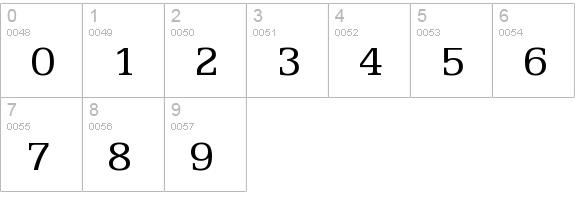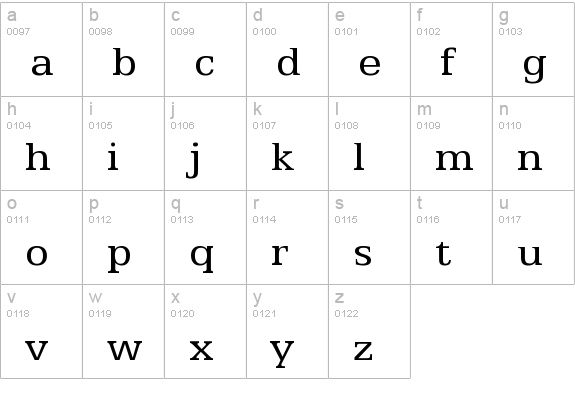
Eggo Wide Normal is the standard, neutral, extended-width variant in the Eggo typeface family \xE2\x80\x94 well suited to general body text, paragraphs, and standard typographic work.
Eggo Wide Normal font is a versatile and stylish typeface that exudes modernity and elegance. Its clean lines and wide proportions make it perfect for a wide range of design projects, from logos and branding to website headers and marketing materials. This font offers a unique combination of sophistication and readability, making it suitable for both display purposes and longer blocks of text. The wide letterforms give Eggo Wide Normal a distinctive presence, making it stand out from the crowd while maintaining a sense of professionalism. With its generous spacing and balanced proportions, Eggo Wide Normal ensures optimal legibility across different sizes and resolutions. Whether it's used for print or digital media, this font will make your content effortlessly engaging and easy to read. One of the best aspects of Eggo Wide Normal font is that it is freely available for download at FontsMarket.com. This means that you can access and use this font in your projects without any limitations or restrictions. Its availability for free makes it even more appealing, as it provides an excellent opportunity to enhance your designs without incurring any additional costs. Don't miss out on the chance to elevate your design work with Eggo Wide Normal font. Download it today from FontsMarket.com and unlock its full potential for your next project. Its versatility, elegance, and availability make it a must-have addition to any designer's toolkit.